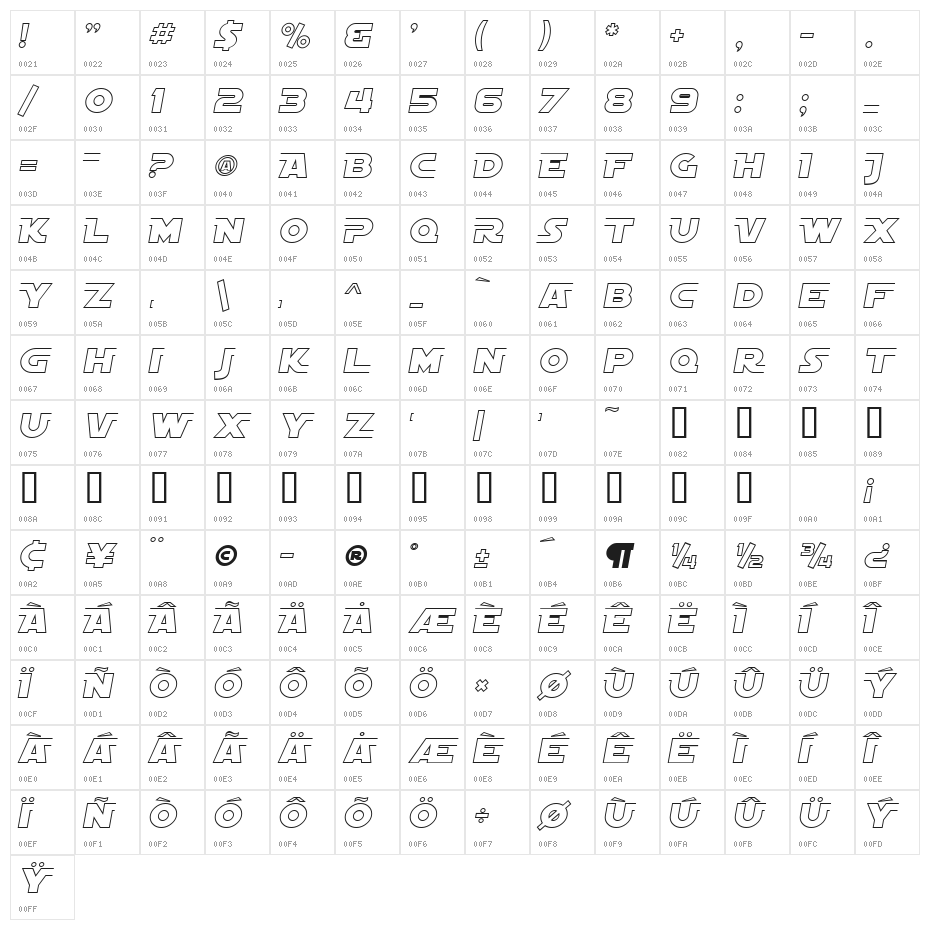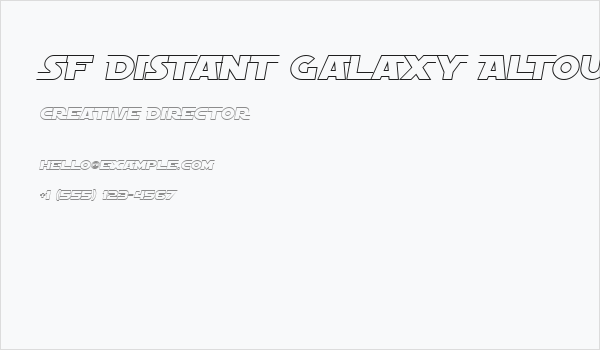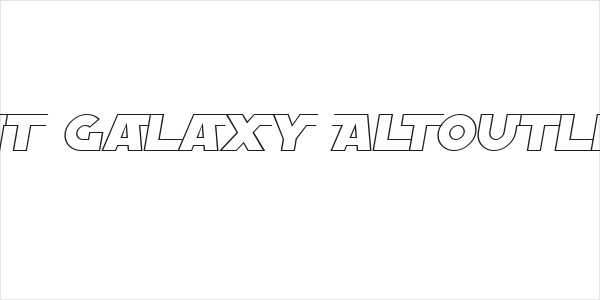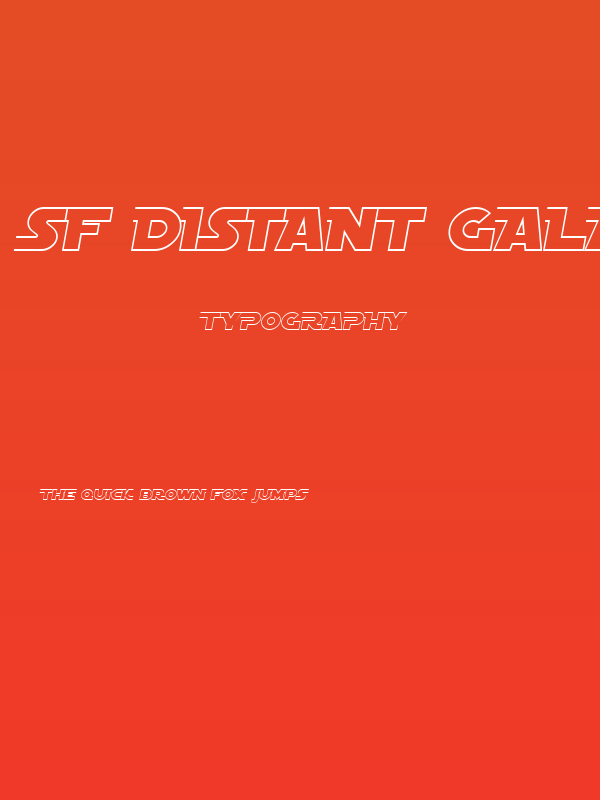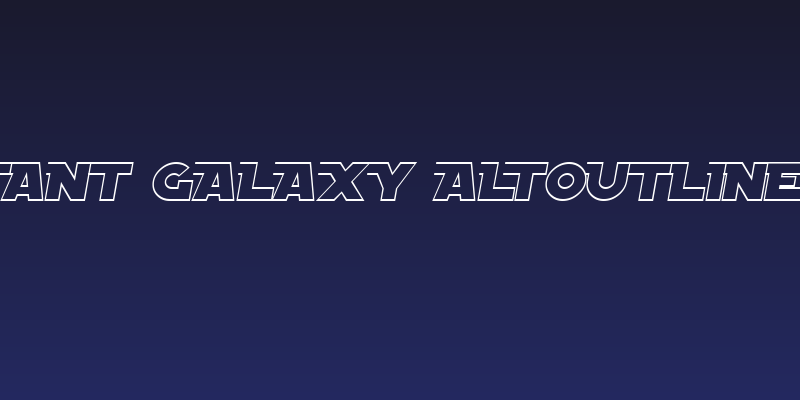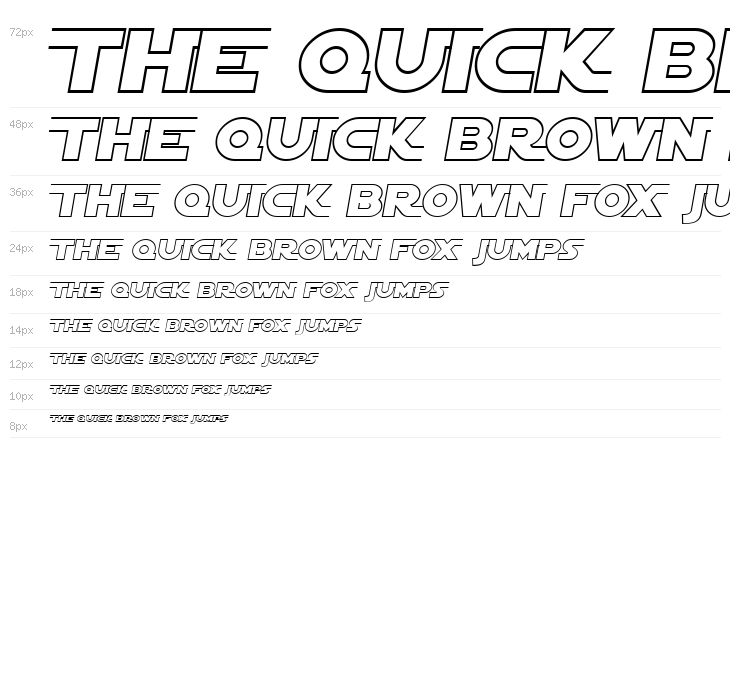
SF Distant Galaxy AltOutline Italic Font
SF Distant Galaxy AltOutline Italic Description
This font features a futuristic and dynamic style with a distinct outline effect. The characters are bold and italicized, giving them a sense of motion and energy. The uppercase and lowercase letters maintain a consistent geometric structure, while the numbers and special characters complement the overall aesthetic. The font's design is reminiscent of science fiction themes, making it ideal for projects that require a modern and edgy look.
| Proposed Projects | Ideal for sci-fi themed posters, video game titles, movie credits, and branding for tech companies. |